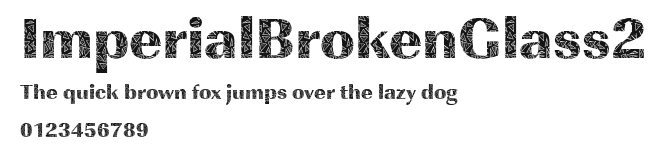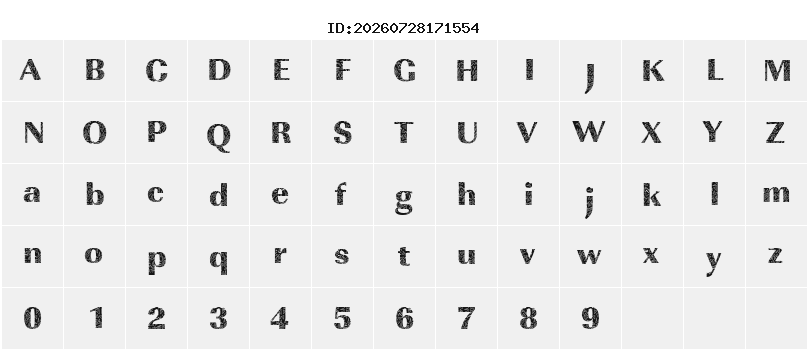
• Font Name: ImperialBrokenGlass2
• Designer: SoftMaker Software GmbH
• Manufacturer: SoftMaker Software GmbH
About ImperialBrokenGlass2.ttf
ImperialBrokenGlass2.ttf is a modern, elegant sans-serif font designed for ultimate readability and visual harmony. Perfect for branding, headlines, web design, and print materials.